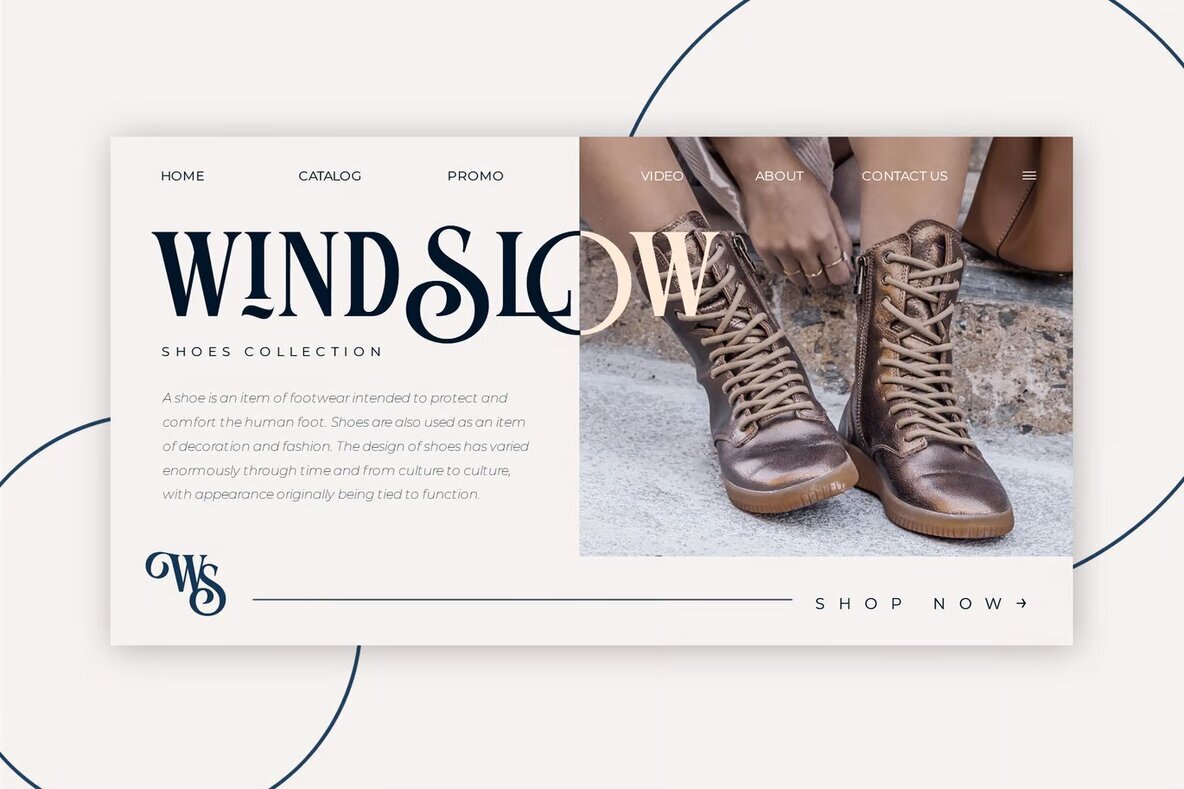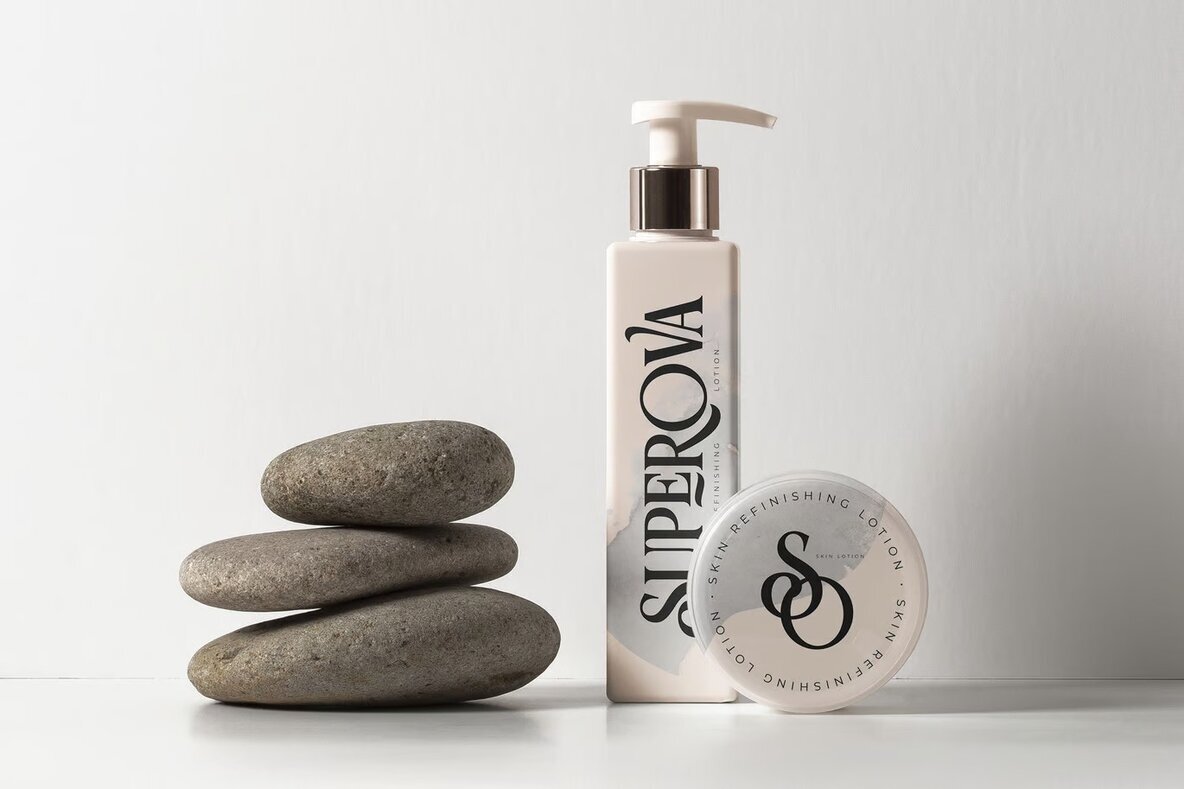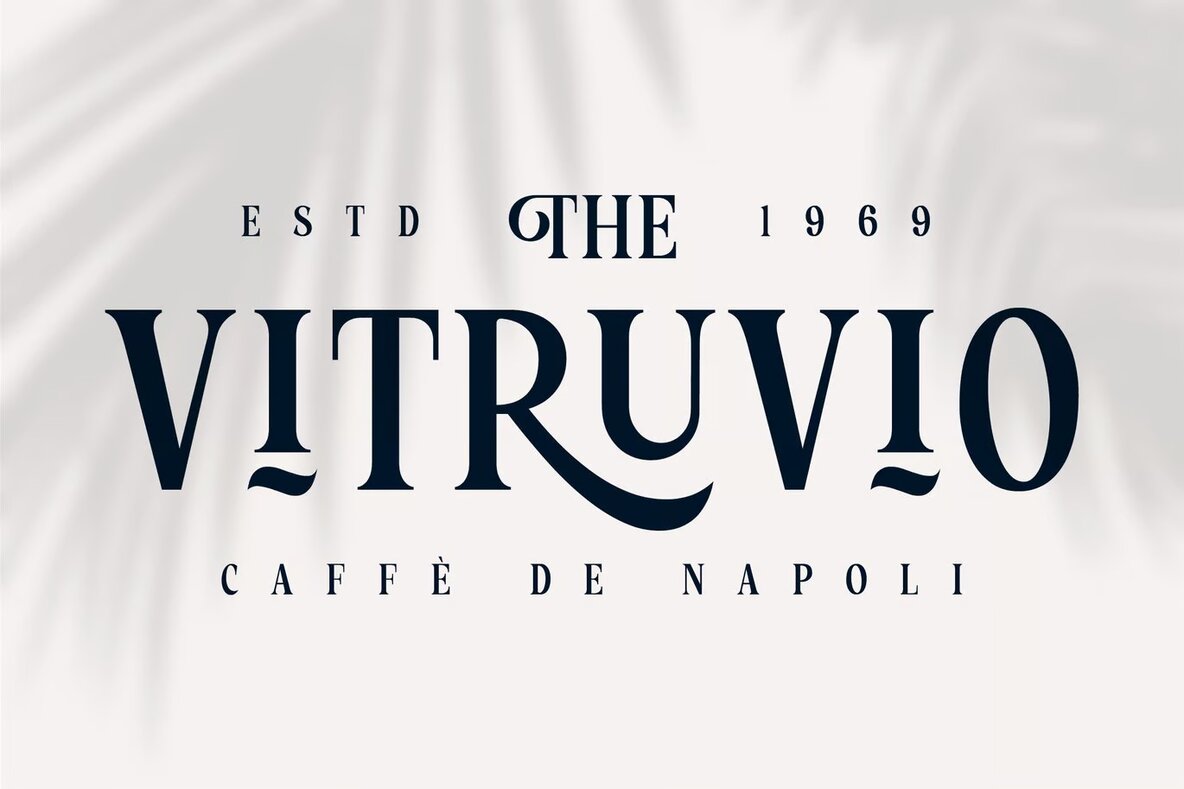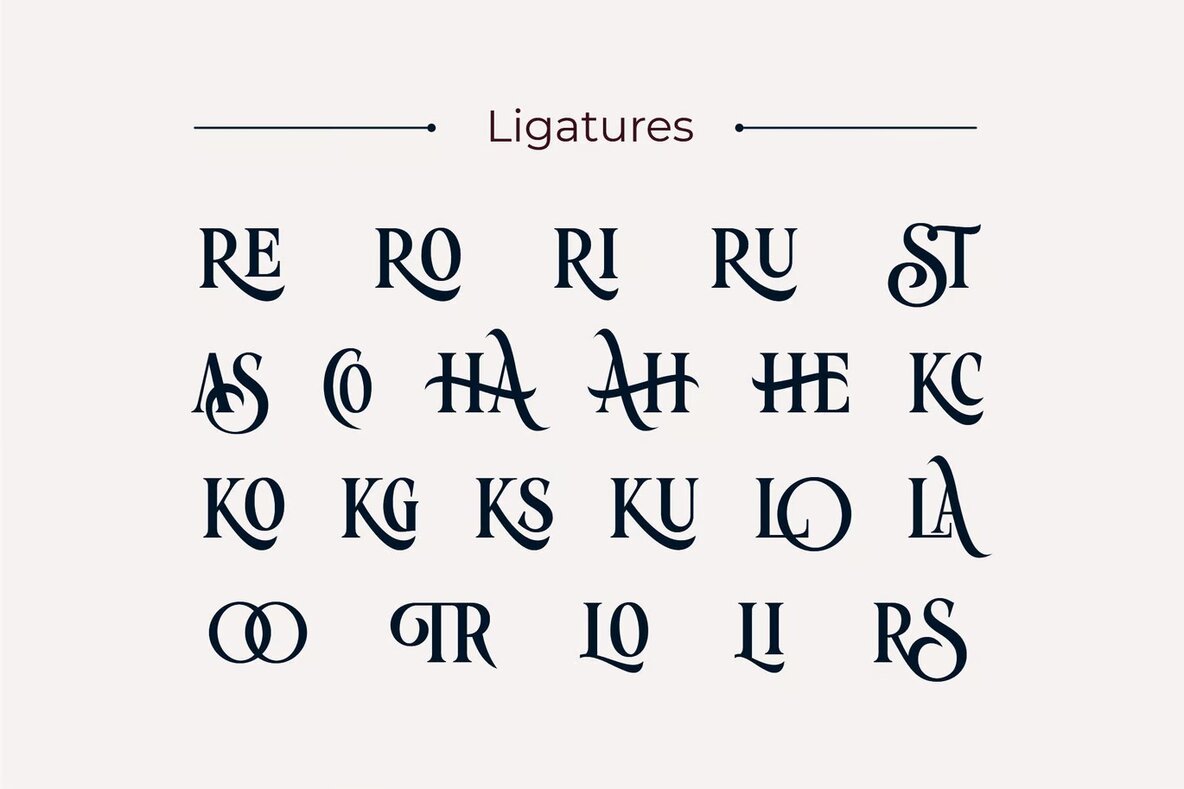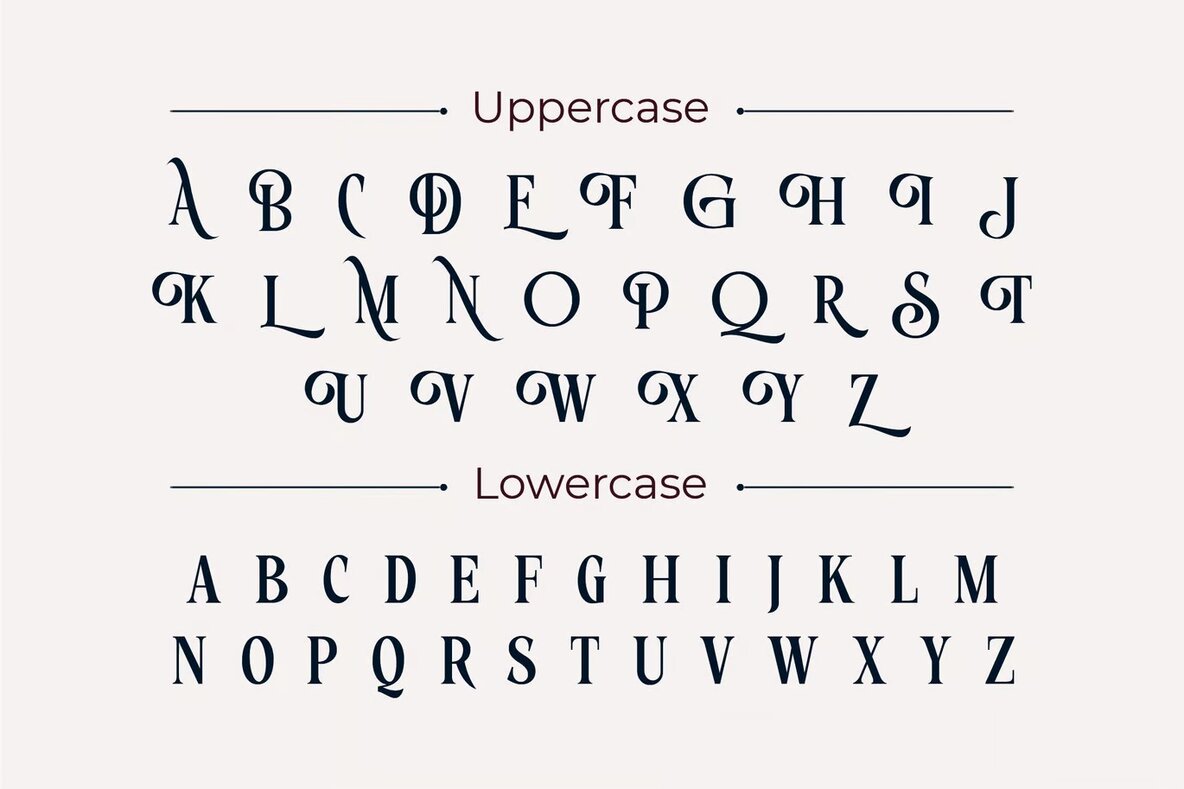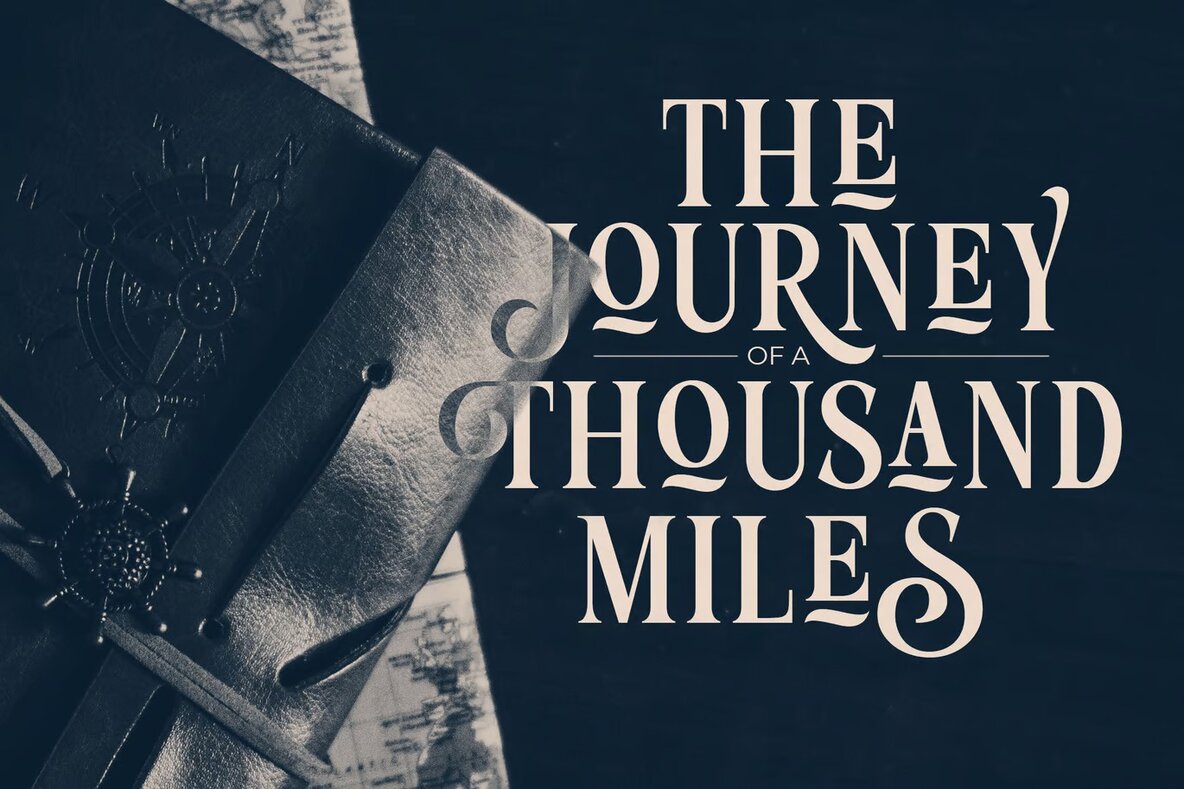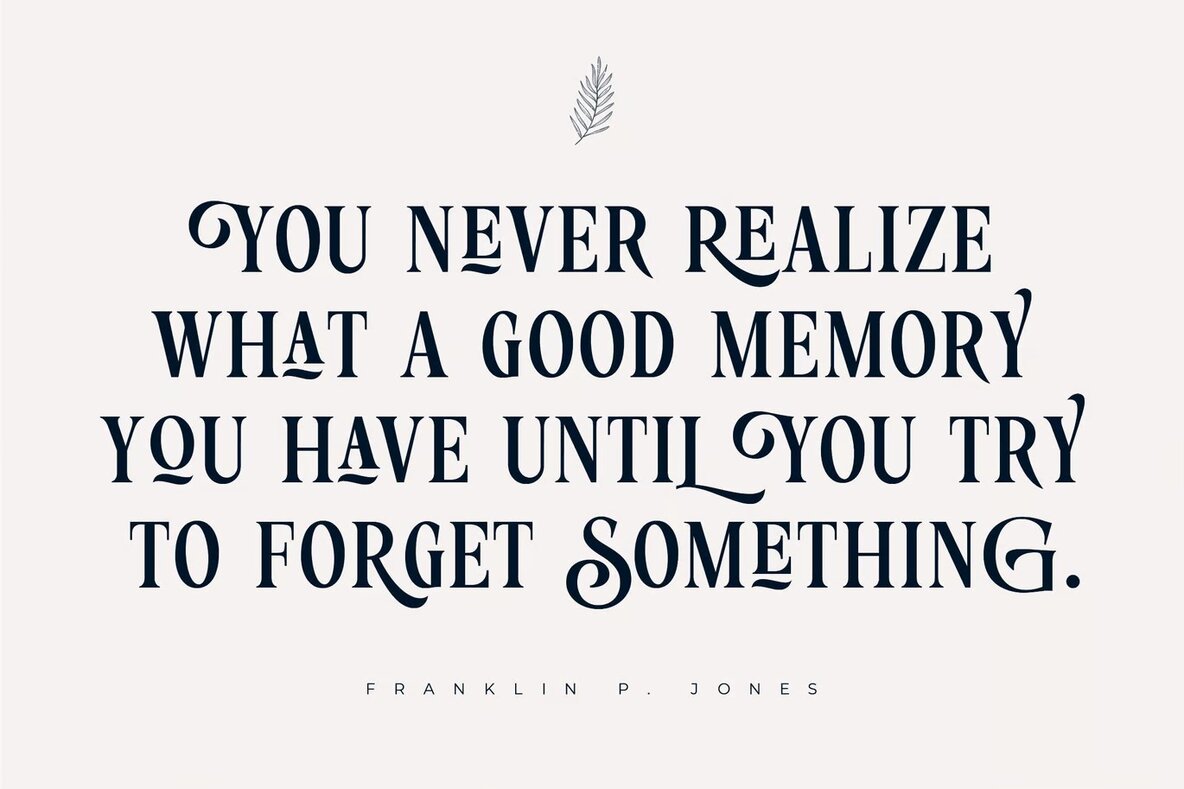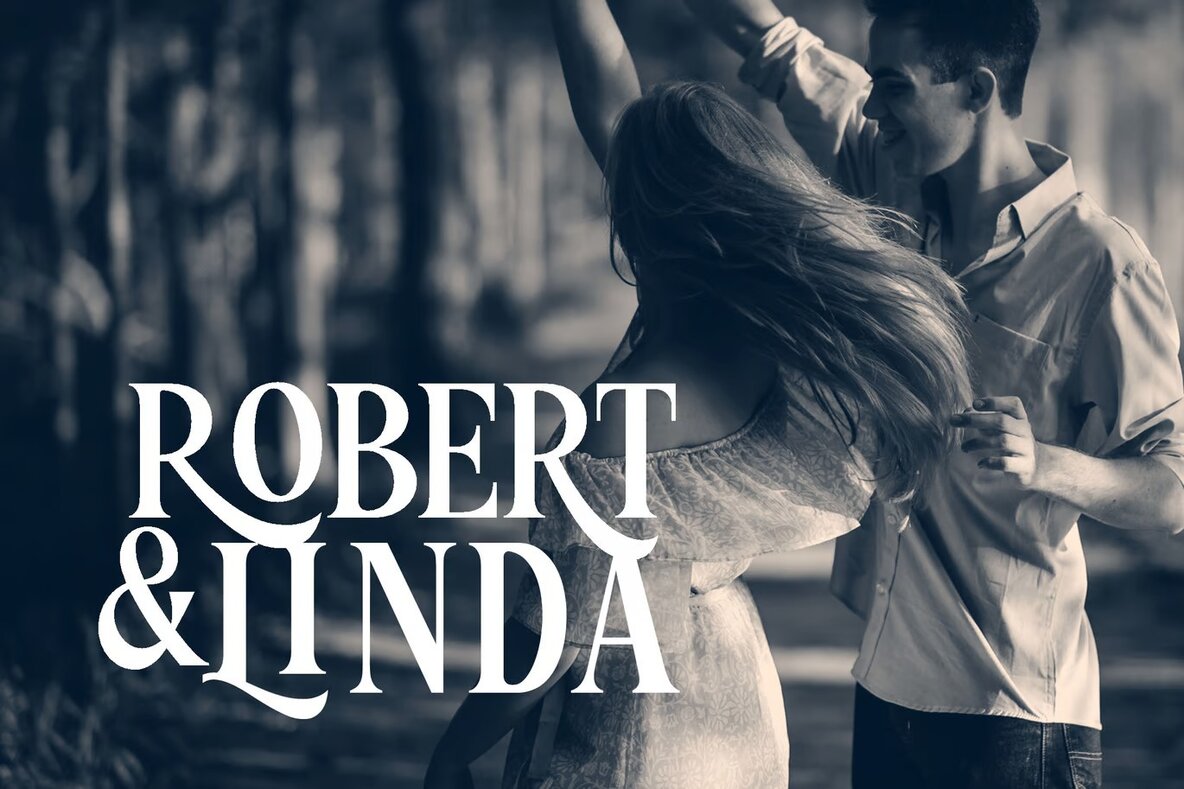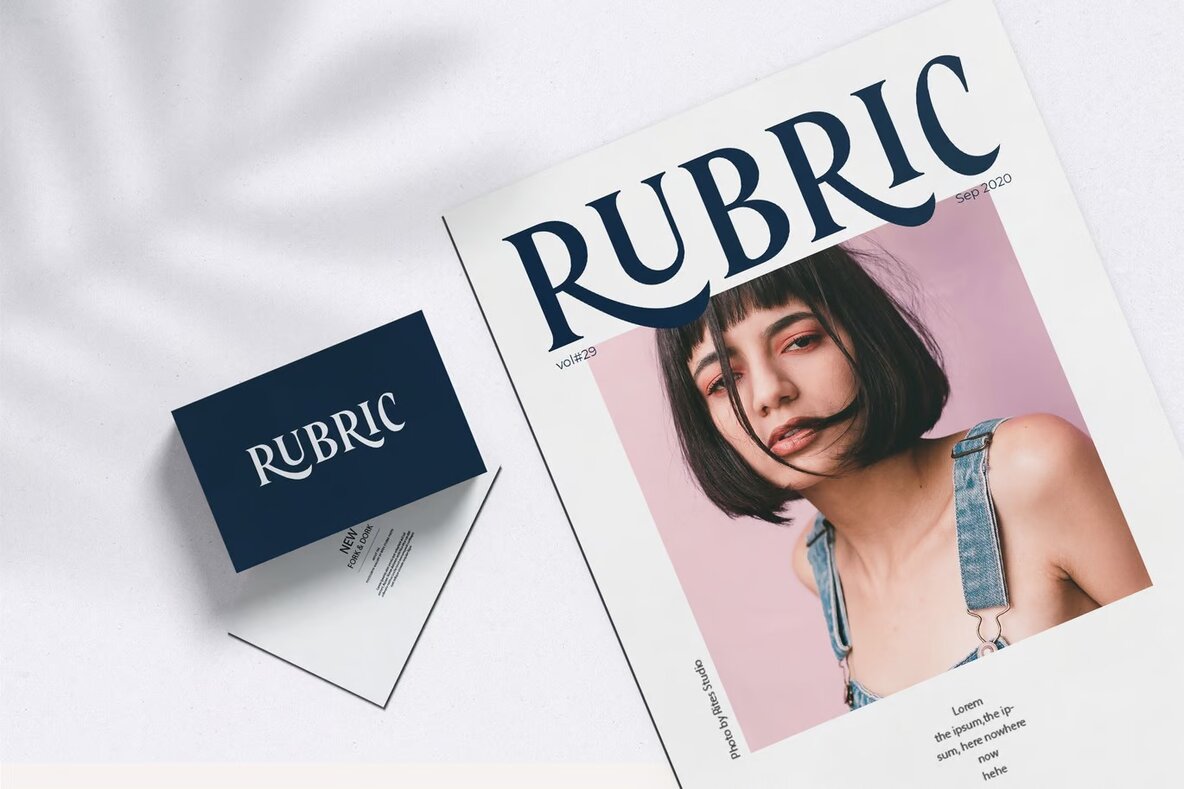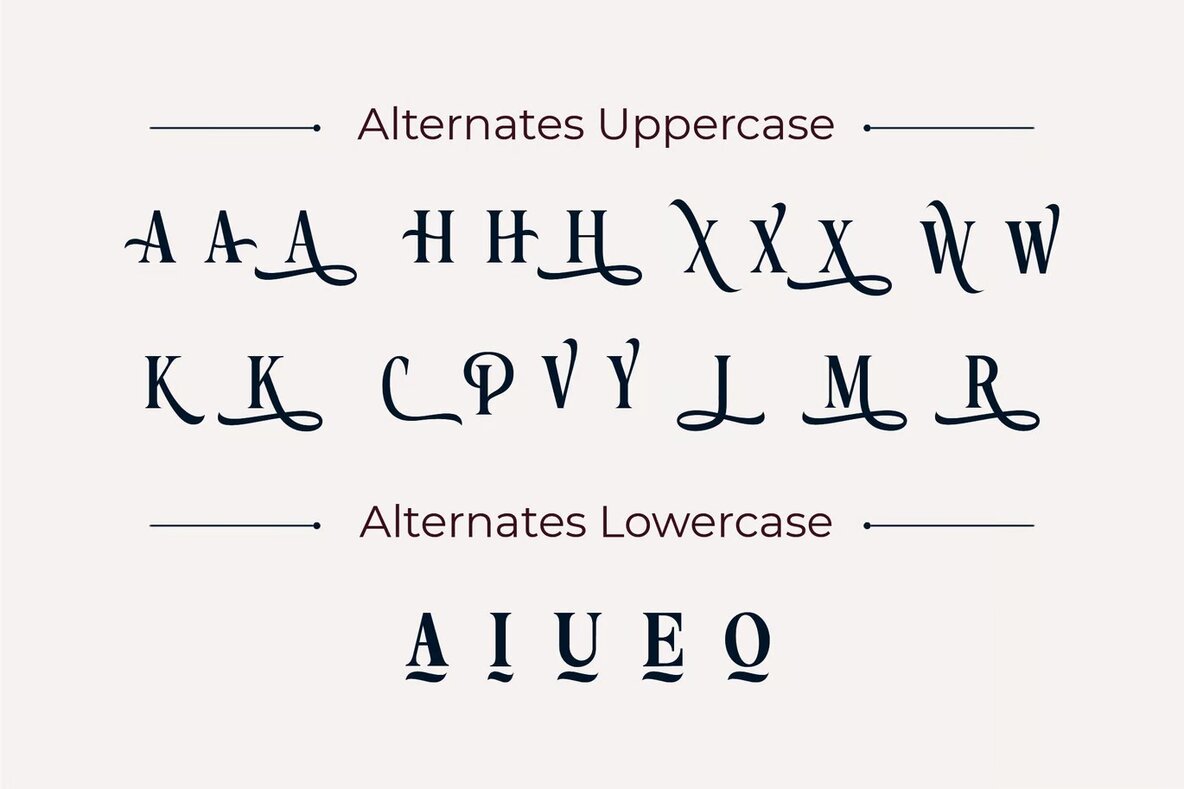
Roystorie Display Font
Roystorie Display Serif is an ideal choice for your next design project, offering a perfect blend of elegance and versatility. Whether you're working on a luxury logo, sophisticated branding, or a classy editorial design, this font meets all your design needs. It's well-suited for magazine layouts, fashion promotions, boutique branding, stationery designs, and blog templates. Enhance your modern advertising projects, invitation cards, art quotes, home decor items, or book covers with this distinctive serif typeface.
Roystorie Display Serif ensures your designs stand out with its comprehensive character set and design adaptability.